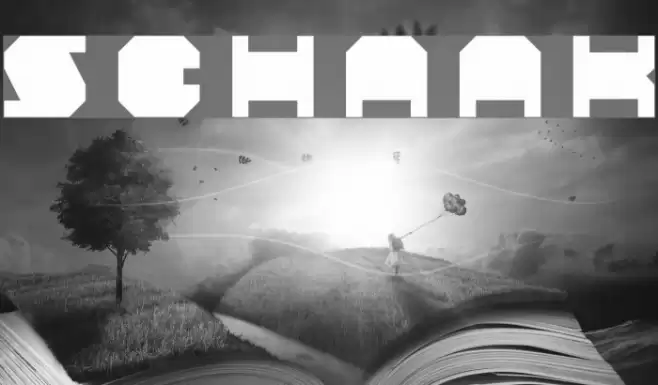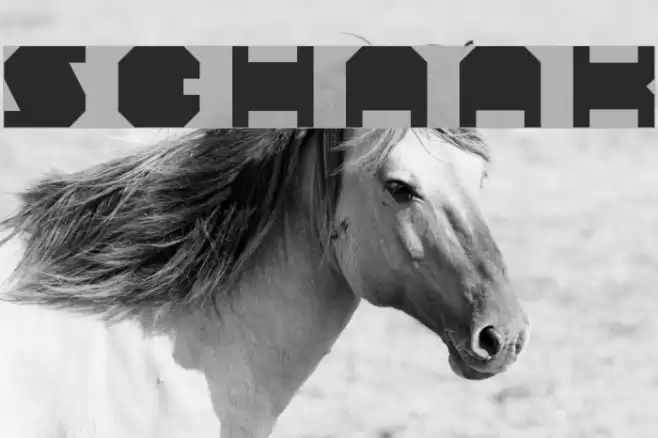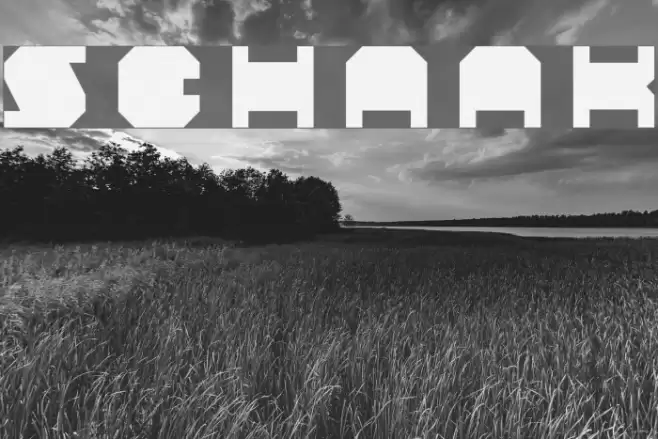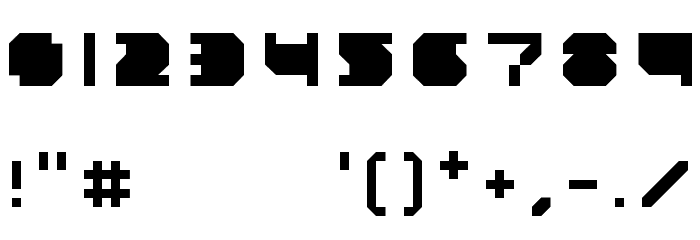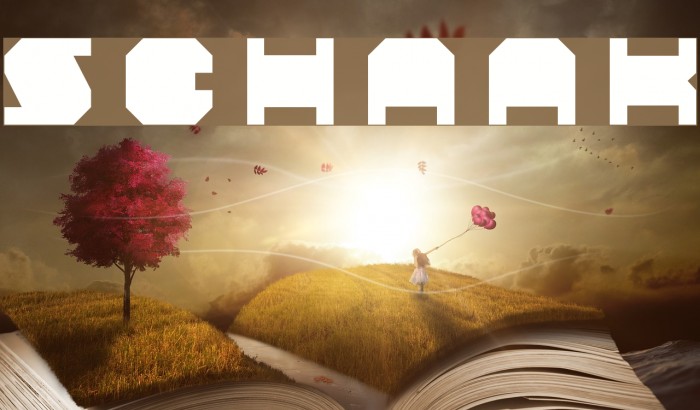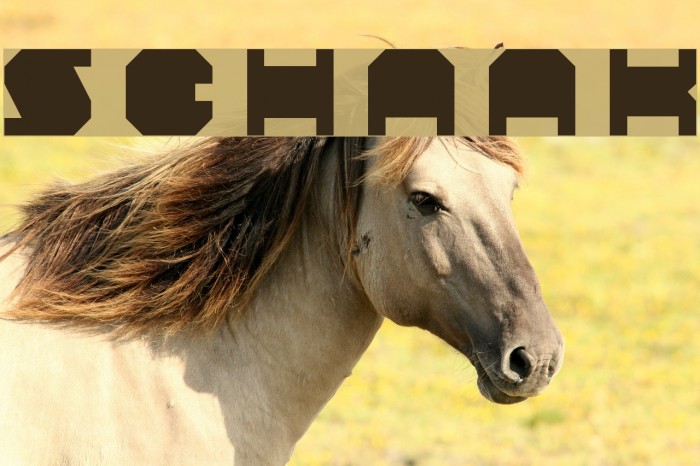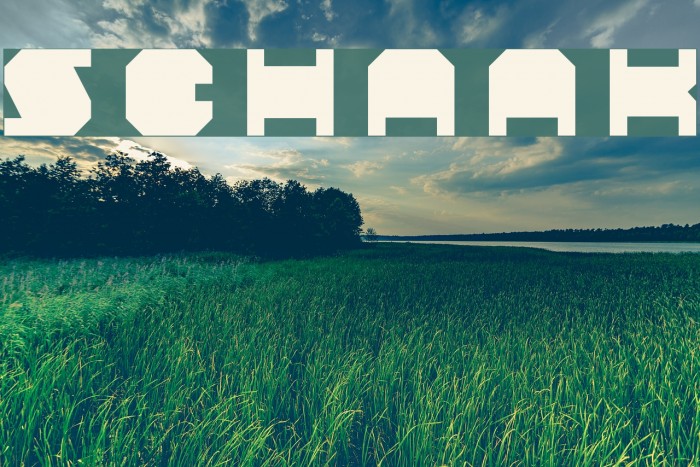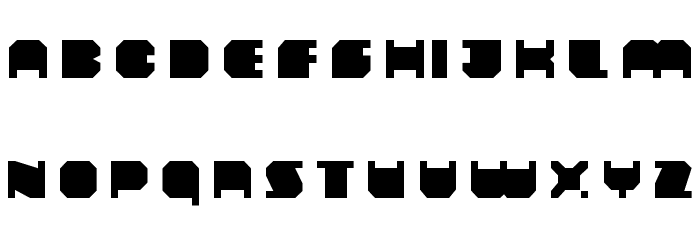
Schaak Font
Schaak Description
This font features a bold, geometric design with a distinctly modern and futuristic aesthetic. Each character is constructed with sharp angles and straight lines, creating a sense of precision and strength. The uppercase and lowercase letters maintain a consistent style, with a blocky appearance that emphasizes uniformity and structure. Numbers and special characters follow the same design principles, ensuring a cohesive look across all elements. The font's unique style makes it stand out, ideal for projects that require a strong visual impact.
A bold, geometric font with a modern, futuristic style from Uncategorized fonts.
- Proposed Projects: Ideal for branding, posters, video game design, and tech-related projects.